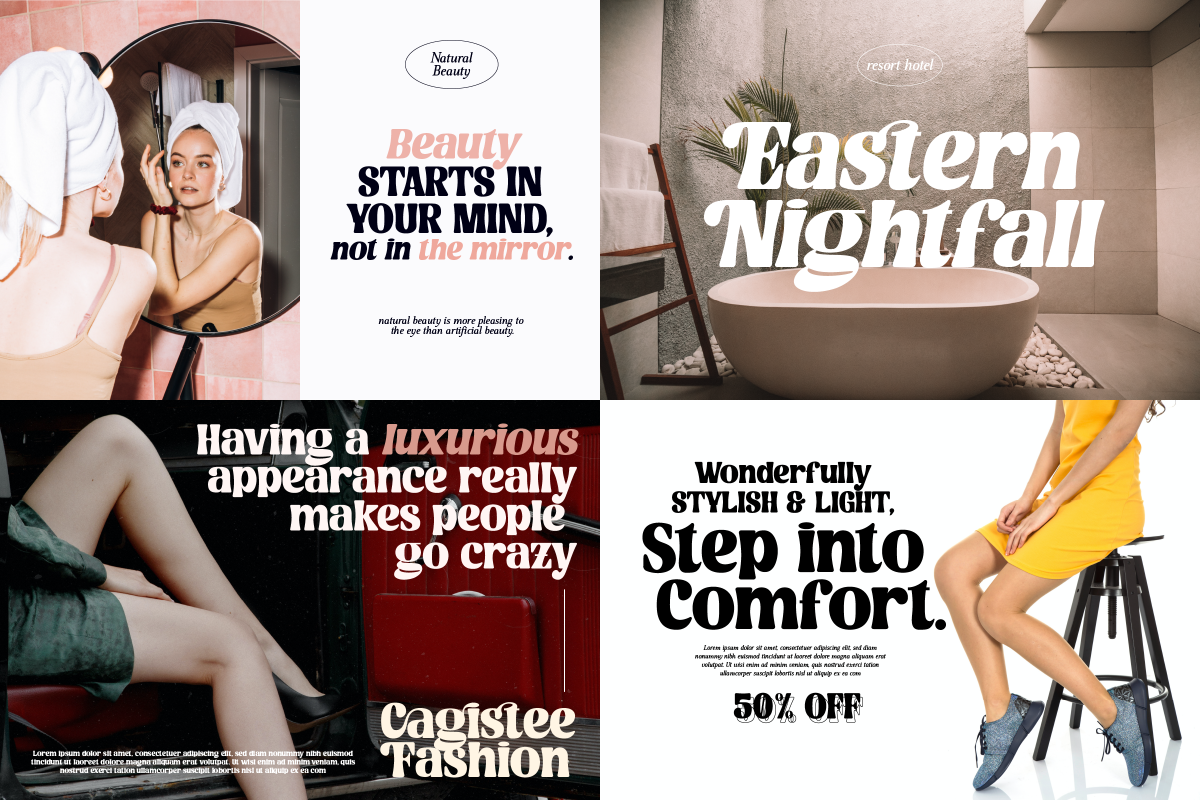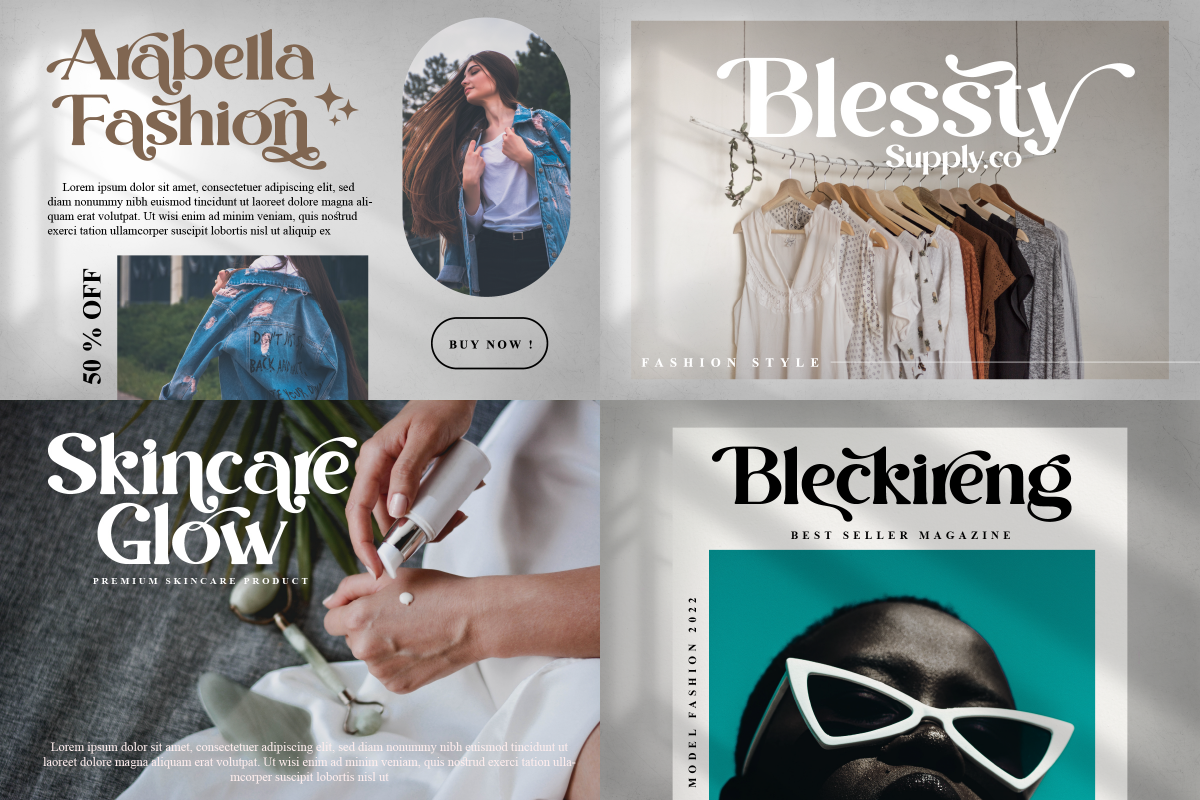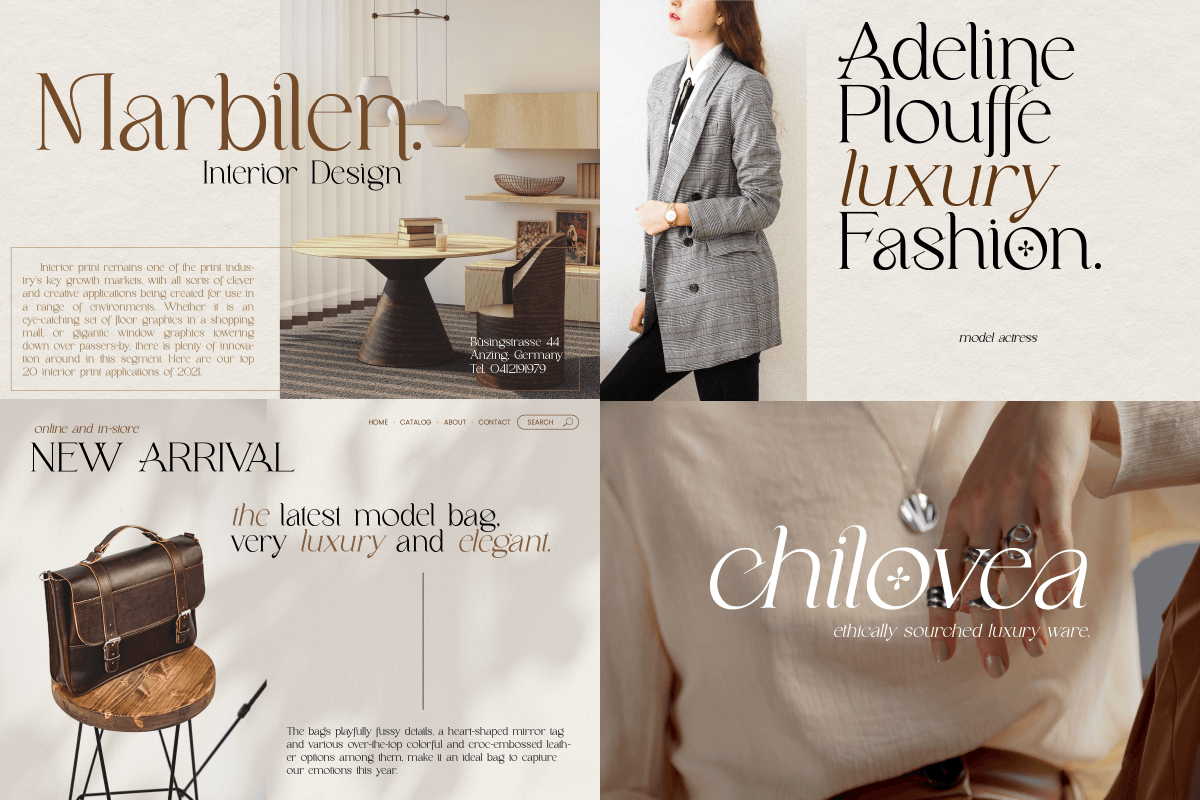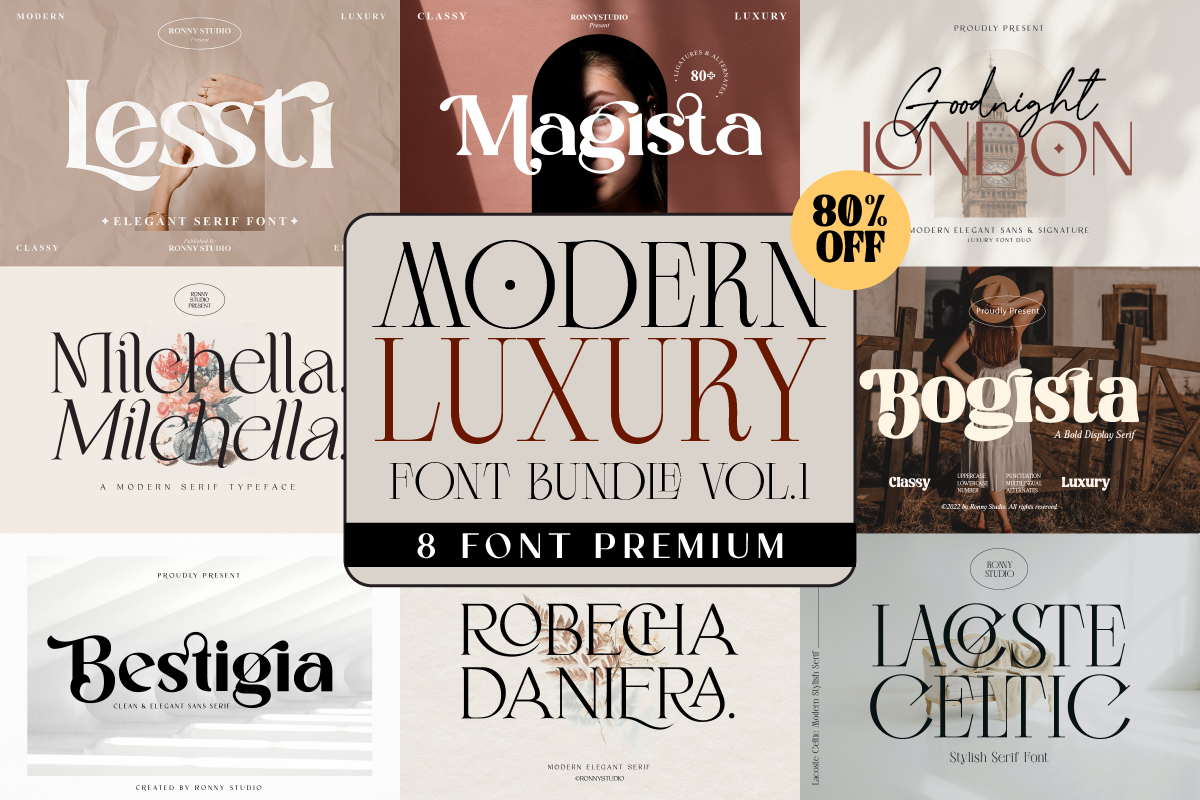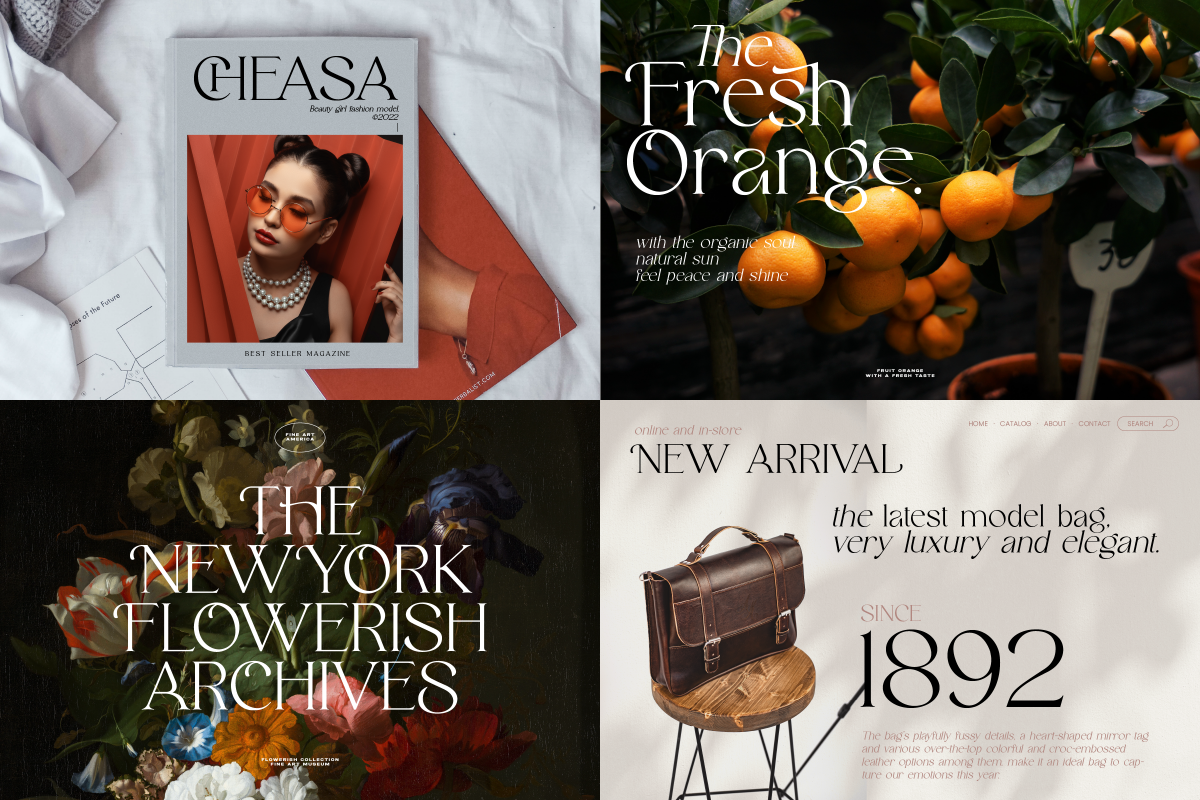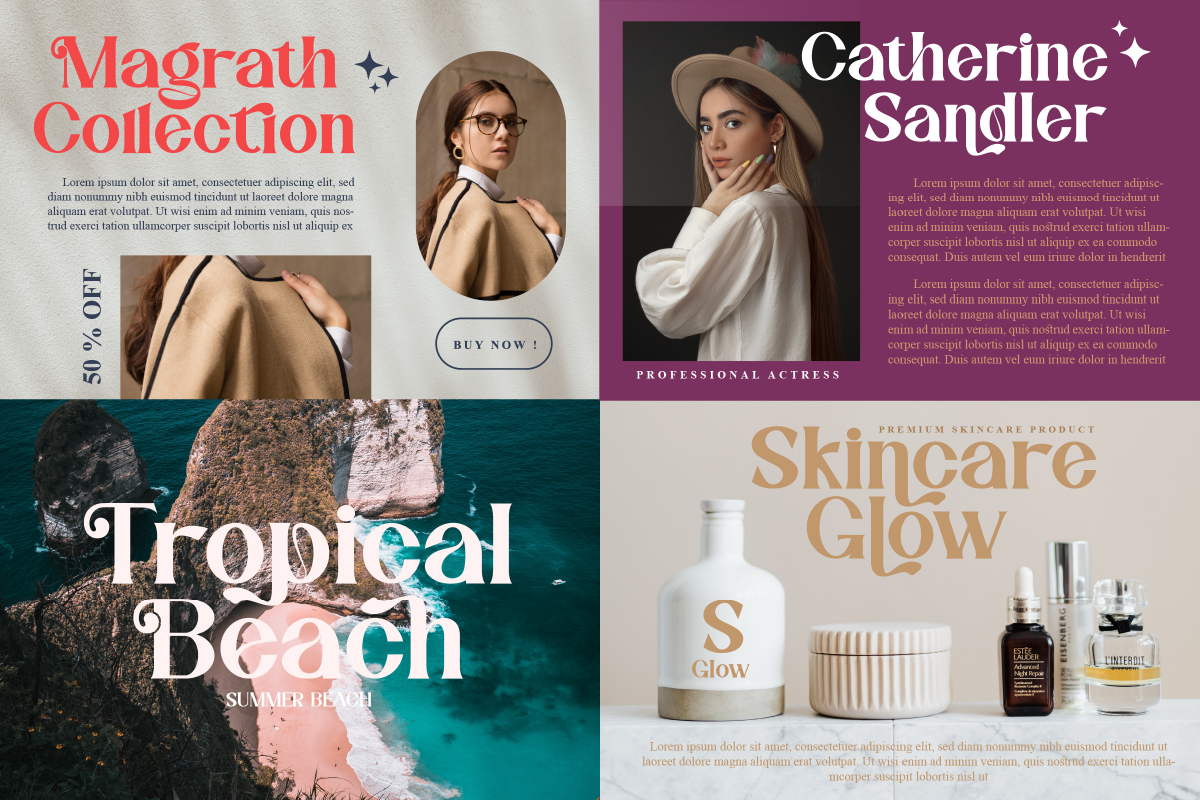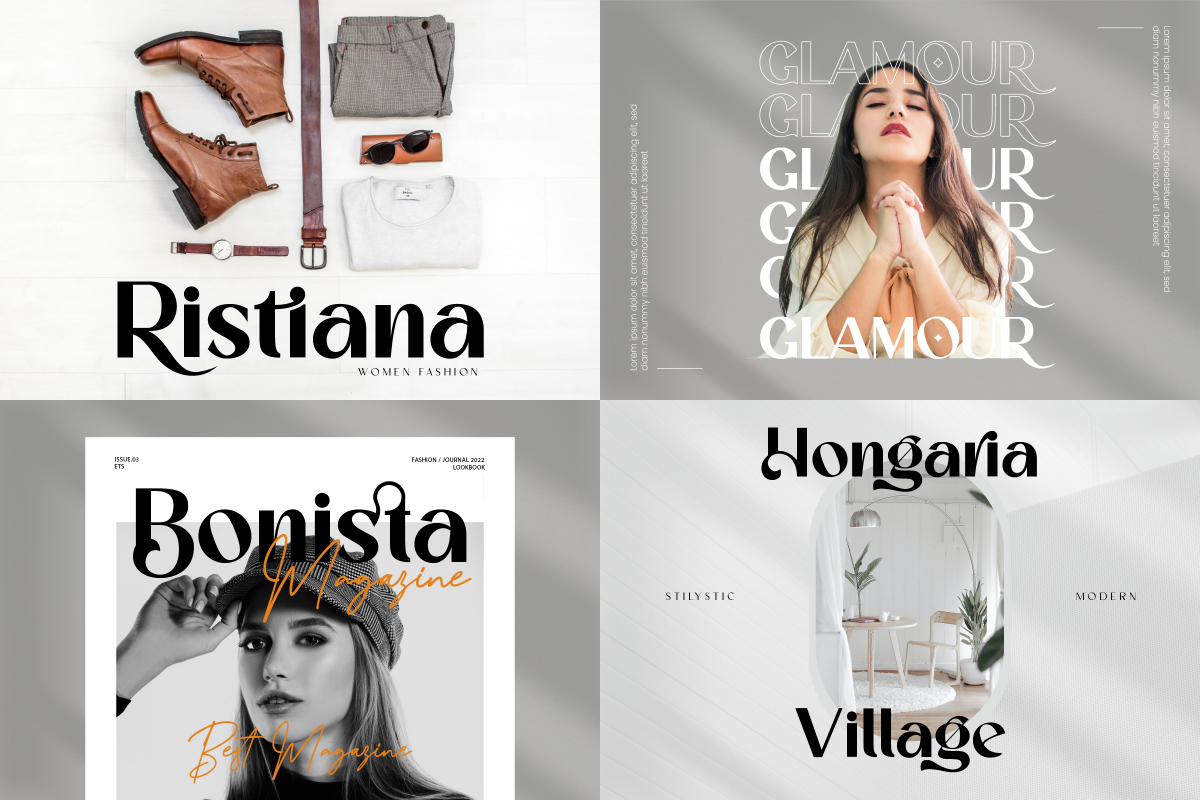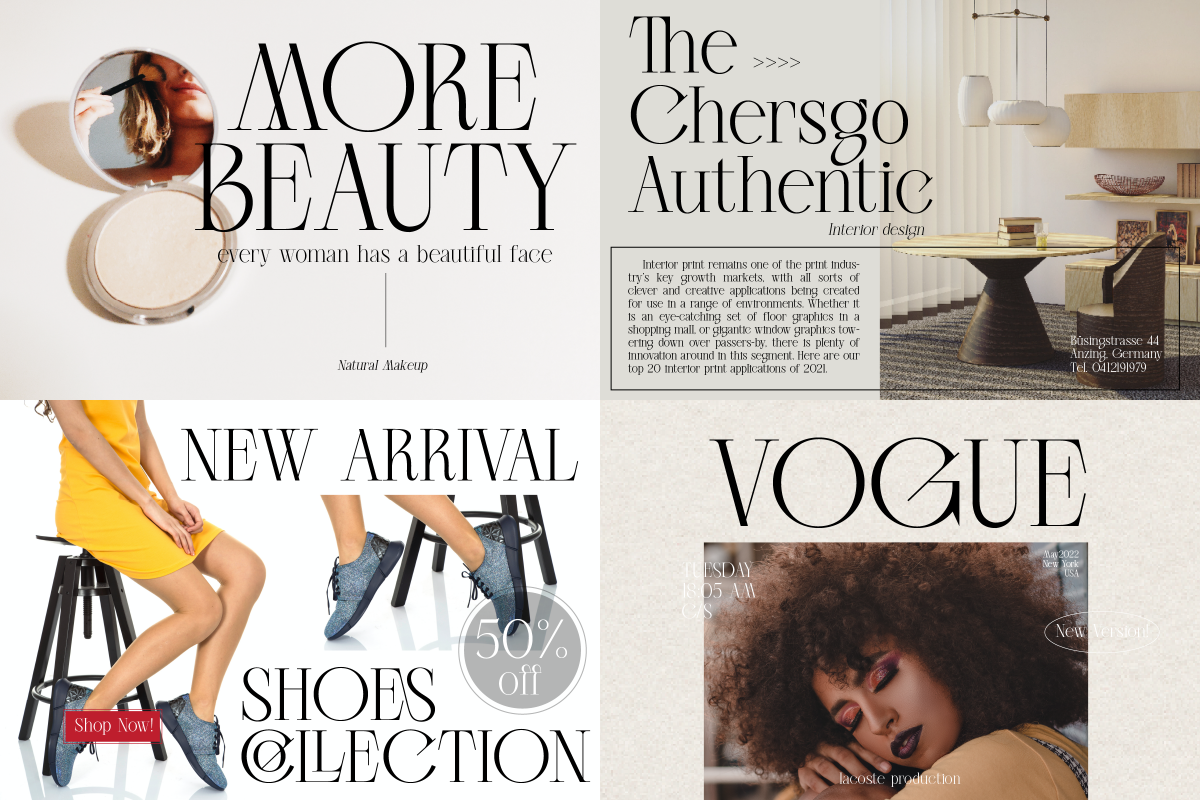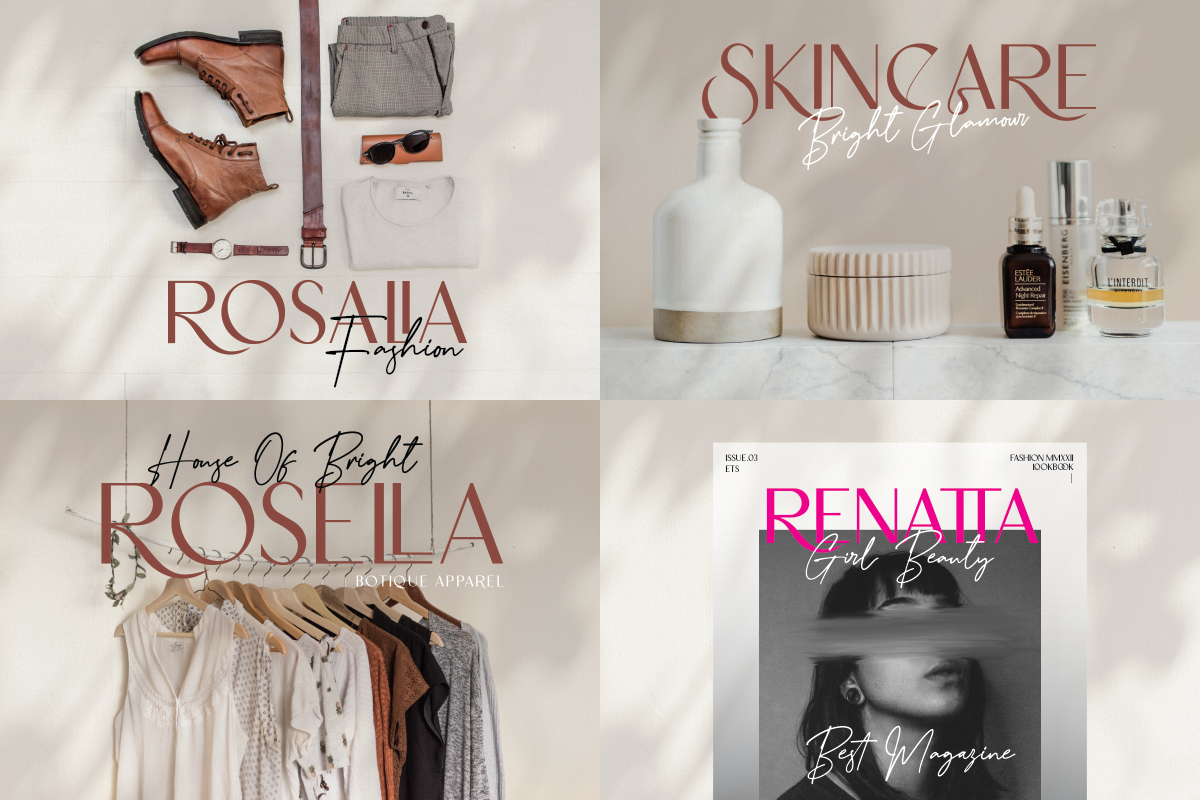
Modern Luxury Serif Font Bundle Vol1
✨ Introducing: Modern Luxury Font Bundle Vol. 1
A premium collection of 8 elegant serif fonts designed for luxury branding, logos, wedding invitations, editorial layouts, and social media content.
This bundle is perfect for creating classy, modern, and professional designs with a timeless luxury aesthetic.
✨ Perfect For
• Logo & branding
• Wedding invitations
• Editorial & magazine
• Fashion & beauty packaging
• Social media design
• Website typography